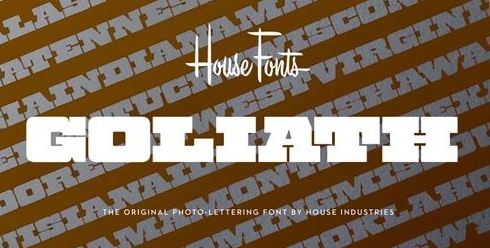
Plinc Goliath Font
Take advantage of Goliath’s superior stature to make viewers take notice in industrial settings, sports branding, and oversized outdoor media applications. For comparatively modest musings in accompanying running text, consider partnering it with a comparatively spartan slab serif like Municipal. Or, team up Goliath with a faceted fellow heavyweight like United Sans. Originally drawn in 1970, Goliath was digitized by Ben Kiel with Adam Cruz in 2011.